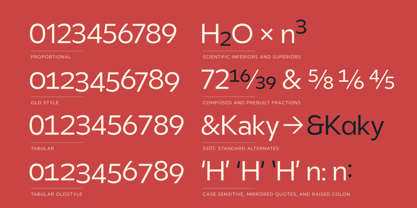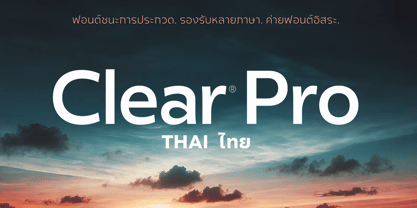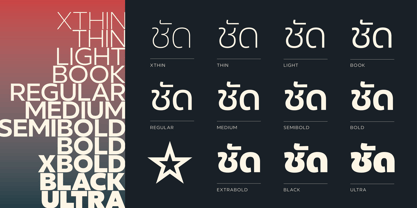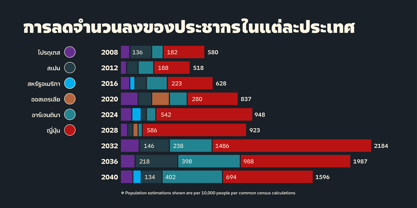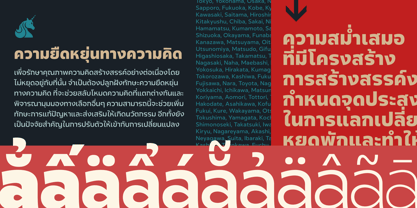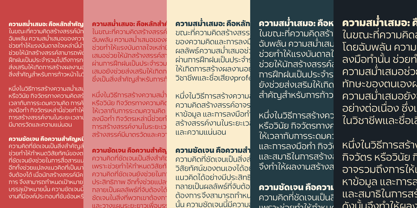
Clear Pro Thai
by Positype
The Clear Pro Thai Font Family was designed by Neil Summerour and published by Positype. Clear Pro Thai contains 11 styles and family package options.
Winner of the 2024 Communication Arts Award of Excellence. Clear Sans™ Pro is a rational geometric sans serif designed to provide an alternative to vernacular and geometric typefaces. Originally hand-painted in 2008, it was completed for a friend's identity and later expanded. Inspired by the bold, straightforward lettering of early 20th-century signage, Clear Sans™ Pro combines precision with warmth. It offers a comprehensive range of weights, widths, italics, and an extensive character set, making it both familiar and versatile. Clear Sans™ Pro balances assertiveness and friendliness, bringing a sophisticated yet approachable tone to any design.
Clear Sans™ Pro has been further expanded to support a variety of scripts, including Arabic, Cyrillic, Greek, Korean, and Thai. This extensive script coverage ensures Clear Sans™ Pro maintains its versatility and accessibility across different languages and cultural contexts, making it an ideal choice for global brands and multilingual projects.